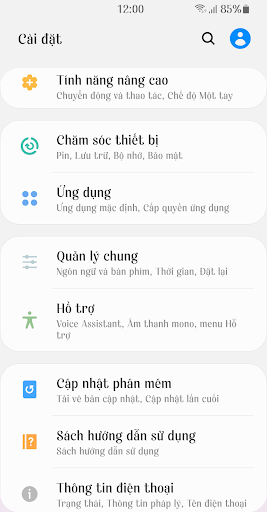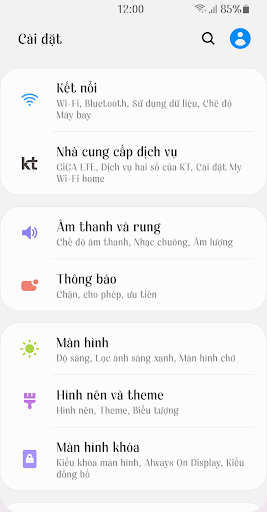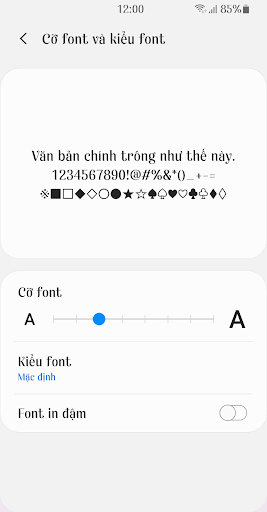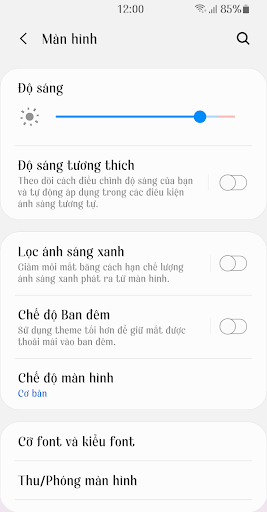
This font is an old style font and is optimized for comfort.
There is a difference in the thickness of horizontal and vertical strokes, and in some characters, the stroke is rounded to finish.
The classical form and the modern look convey the antique style and refined beauty.